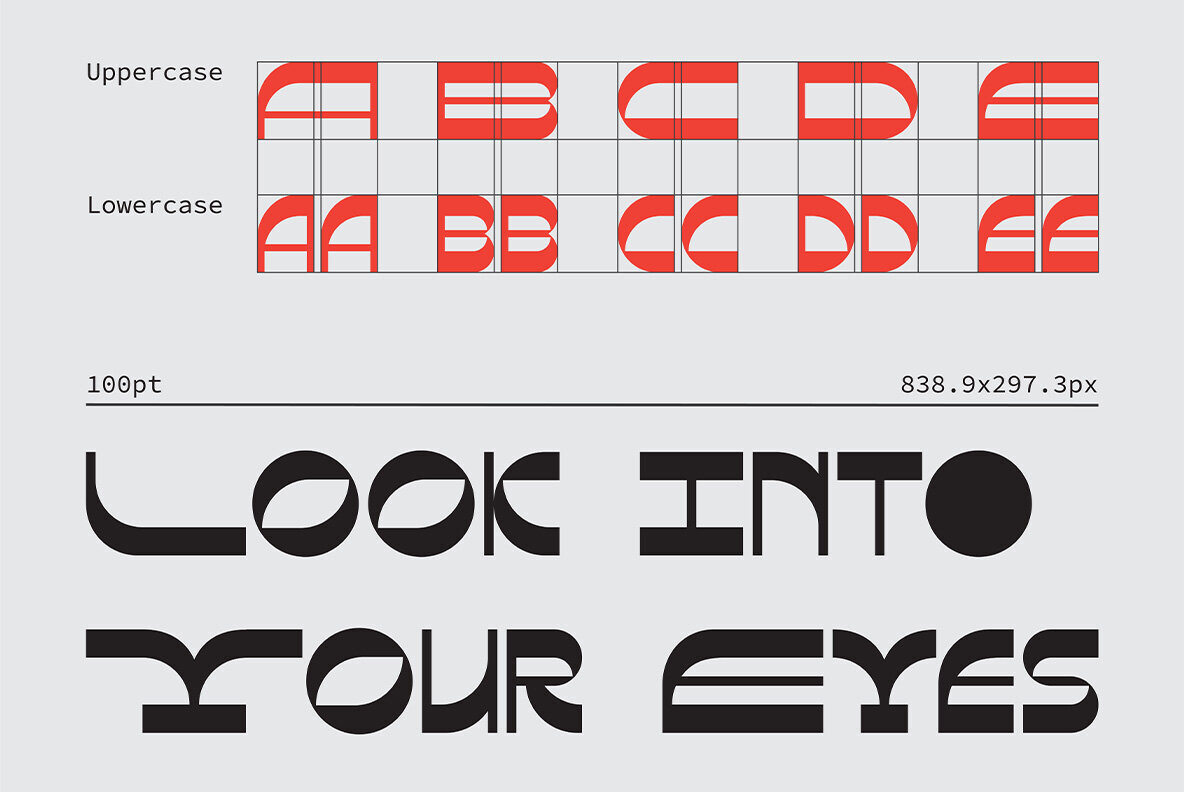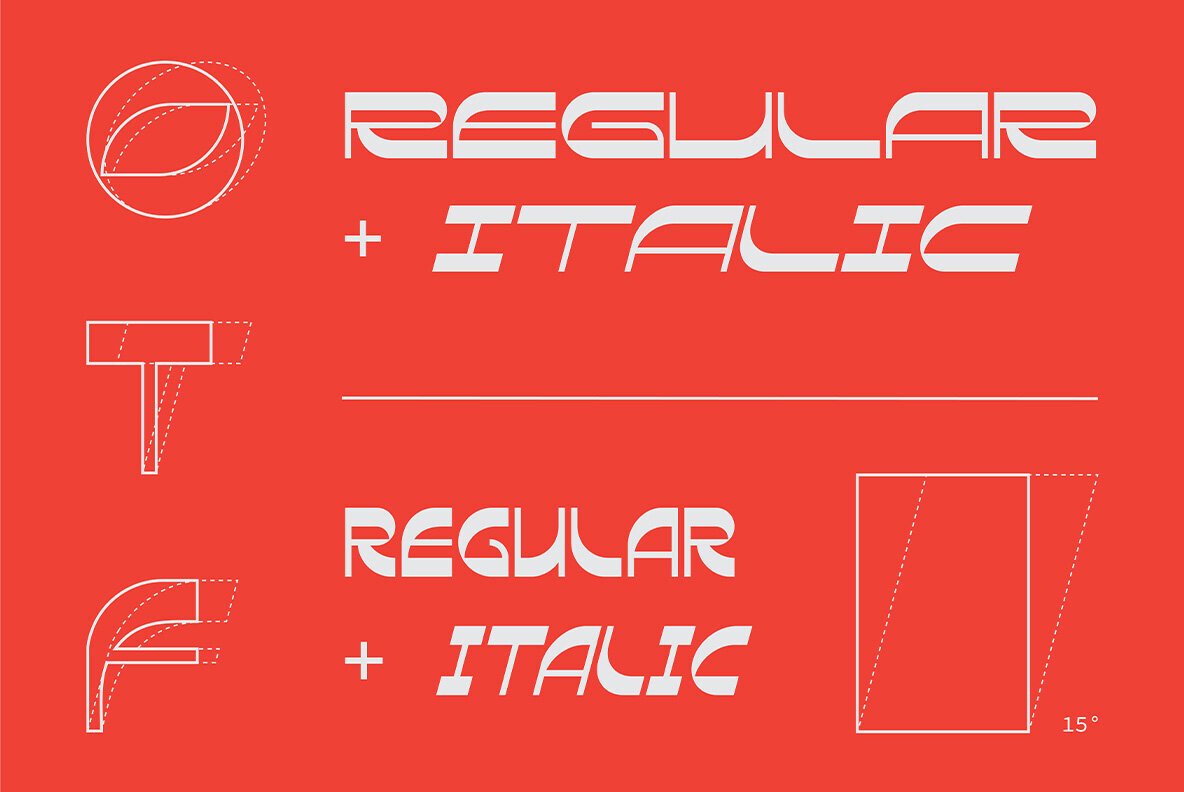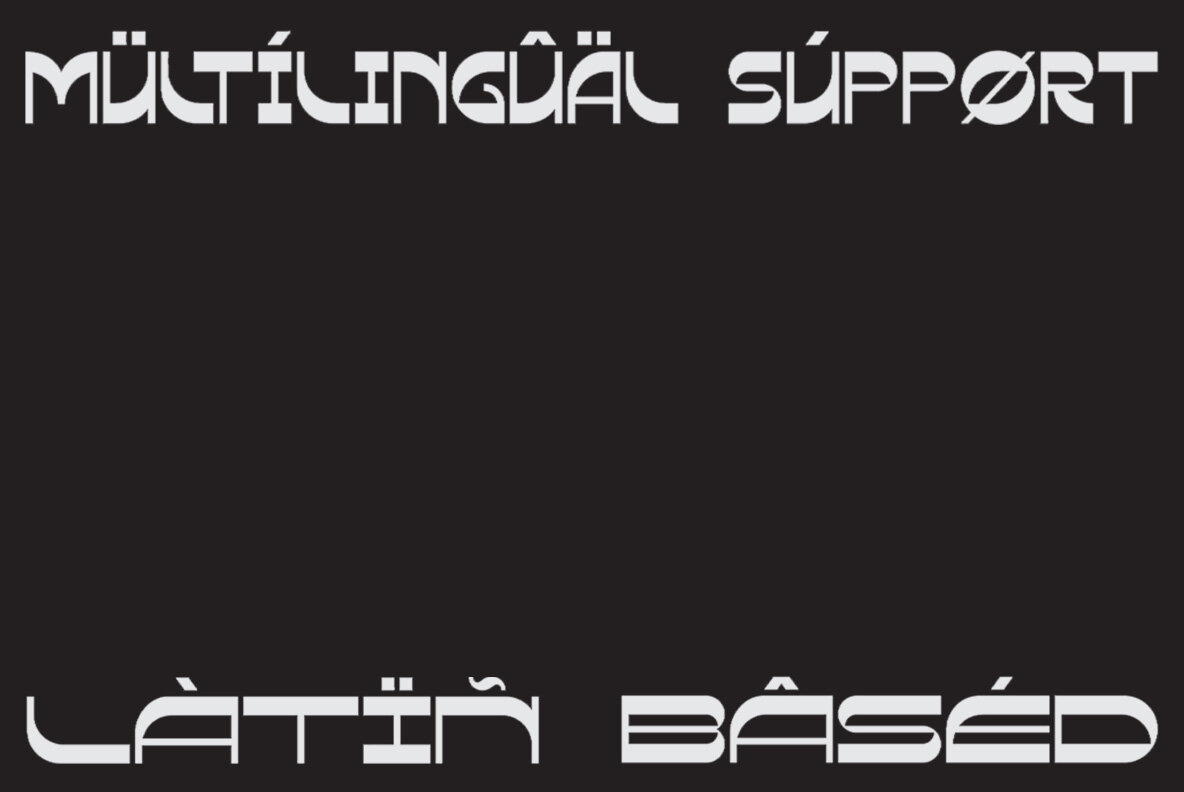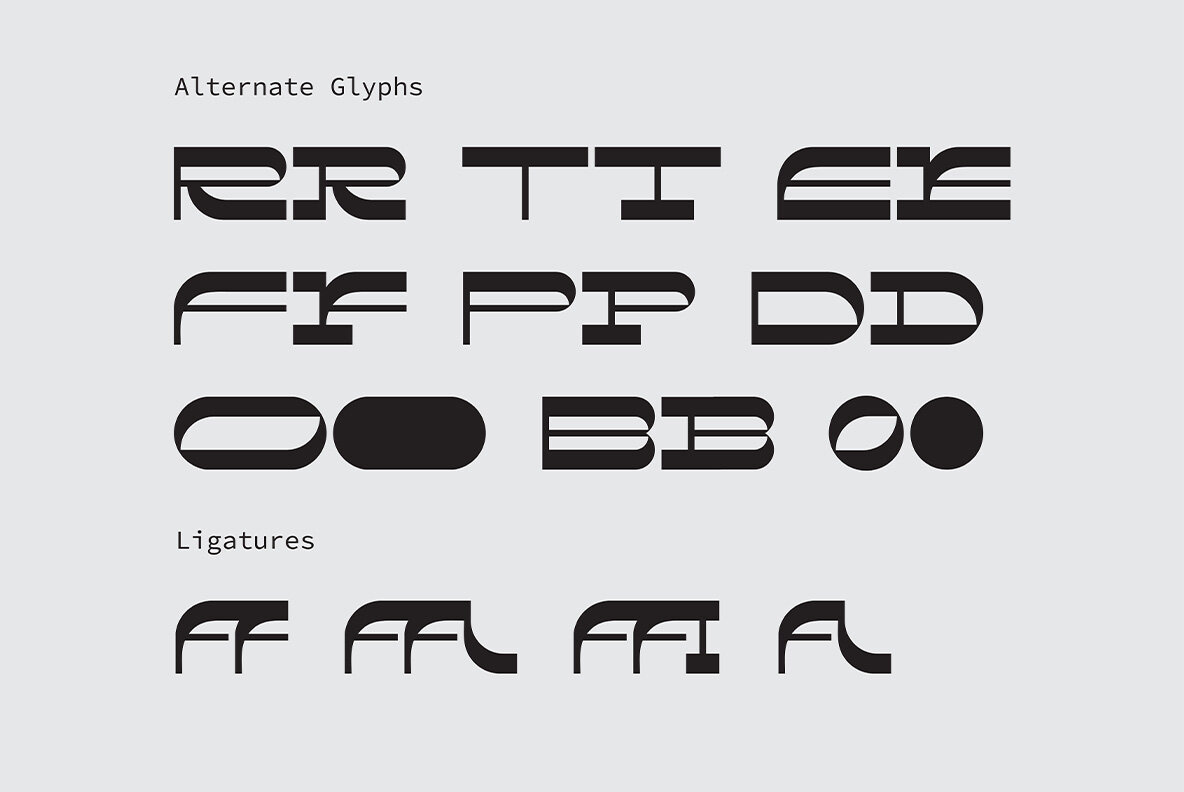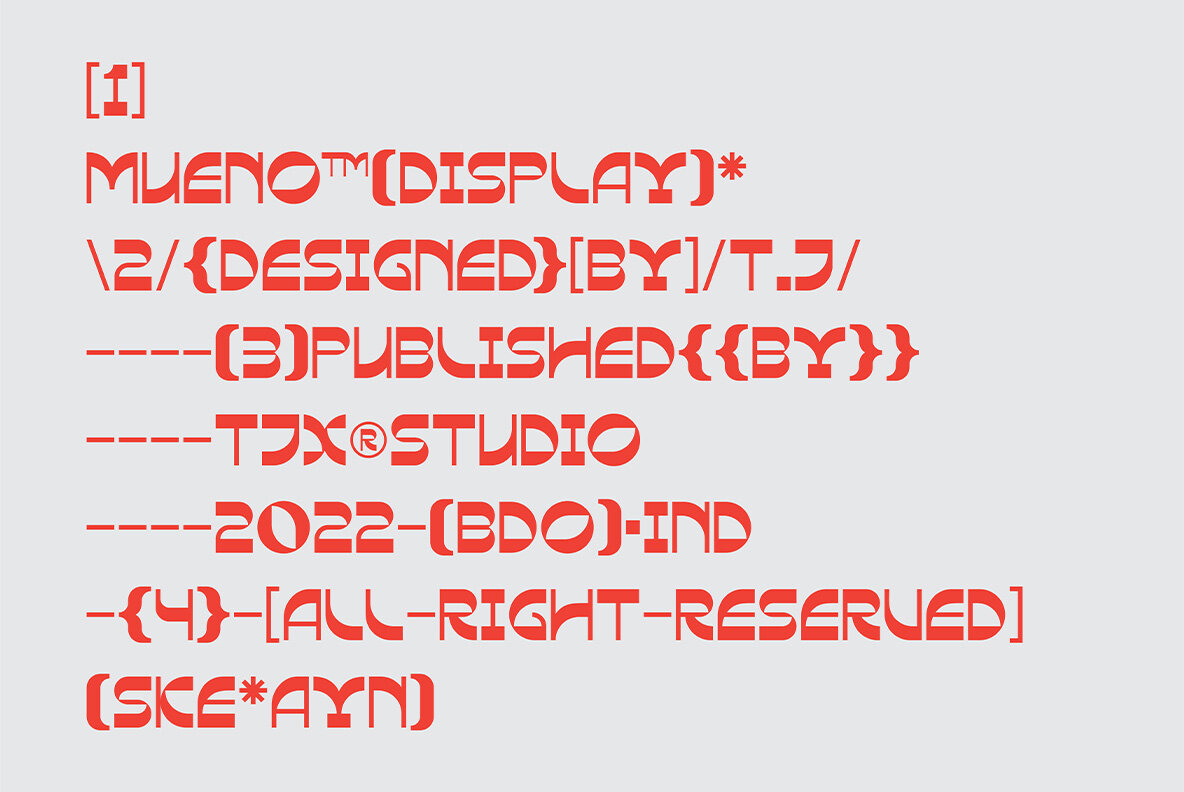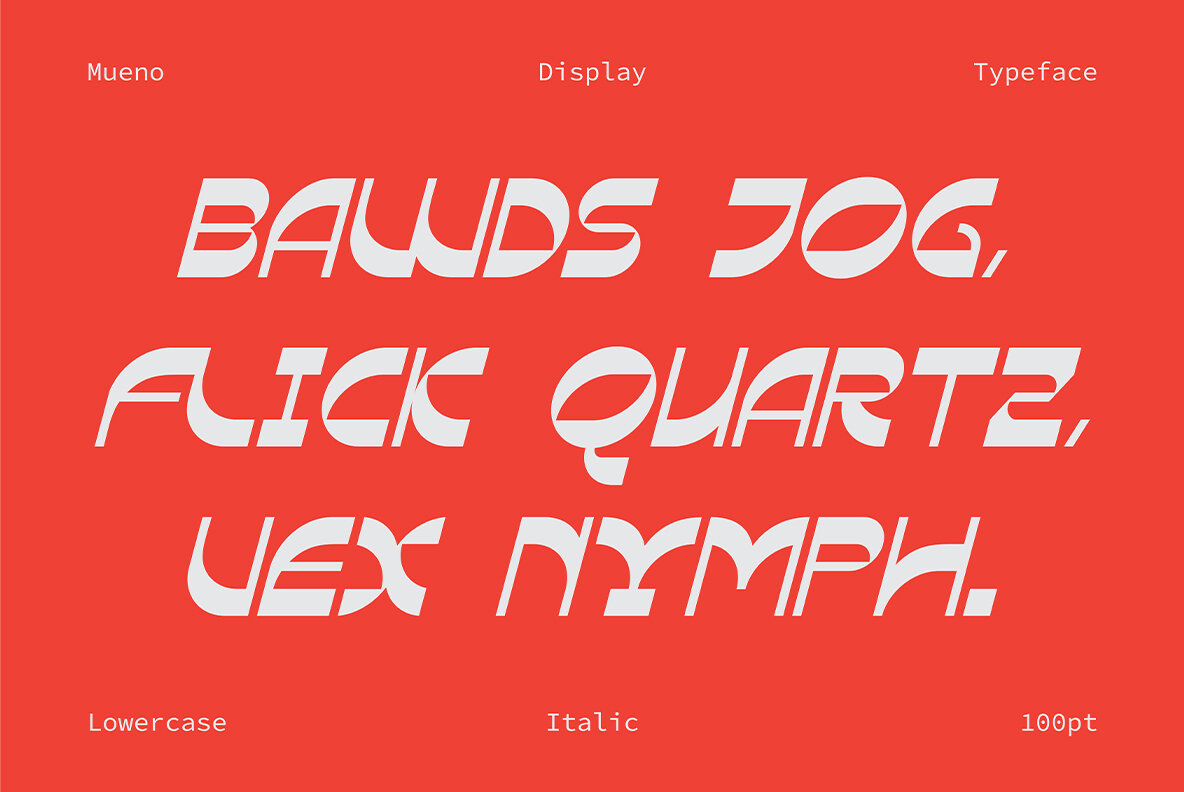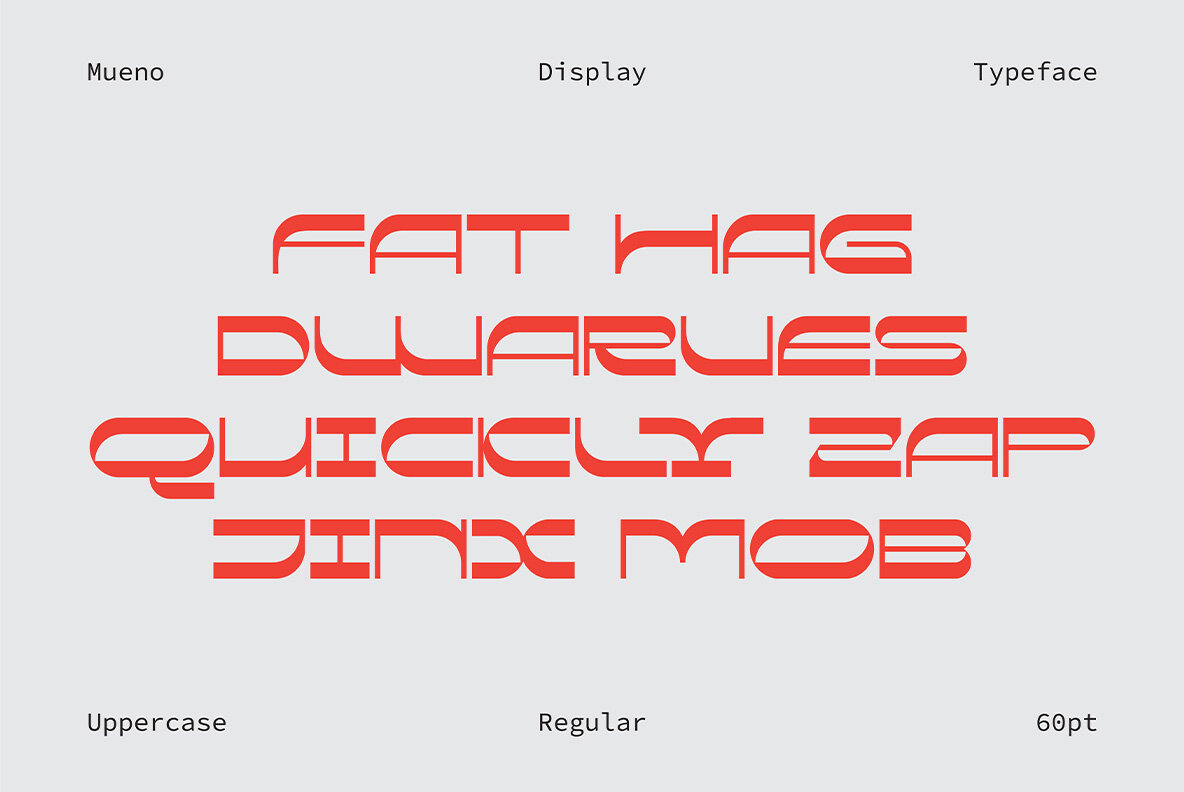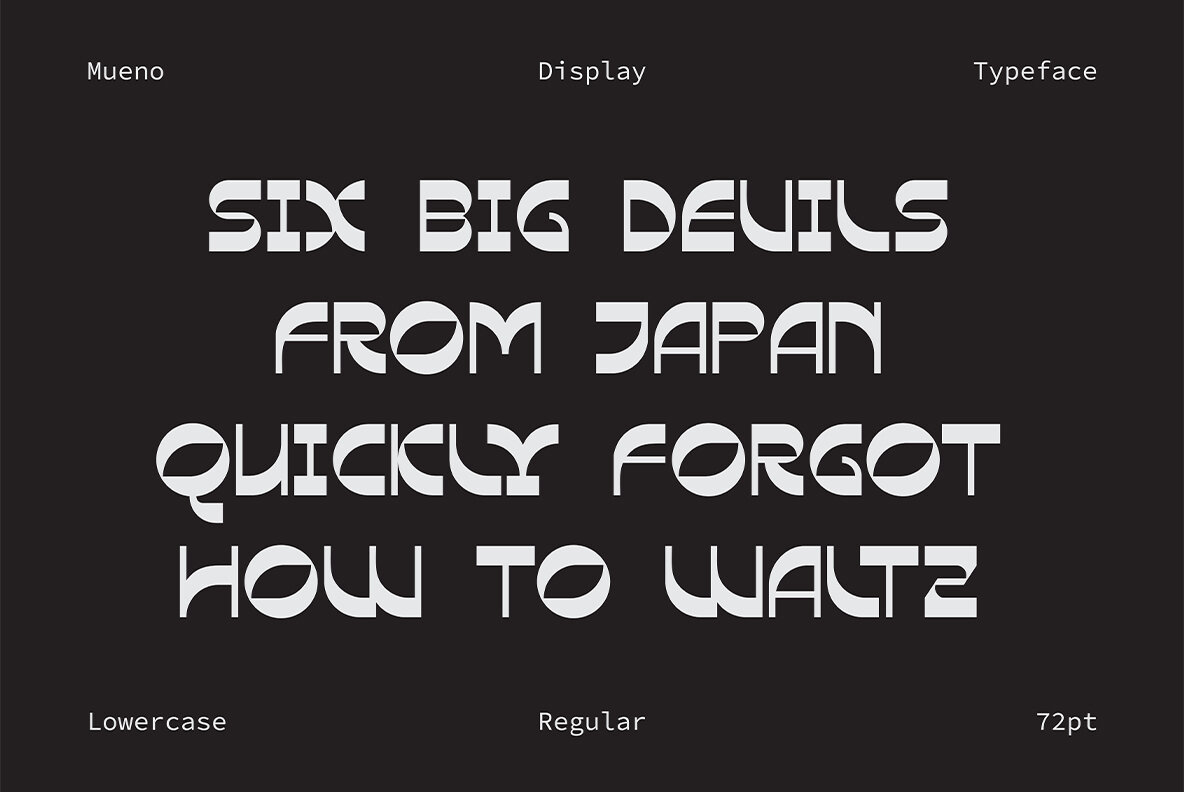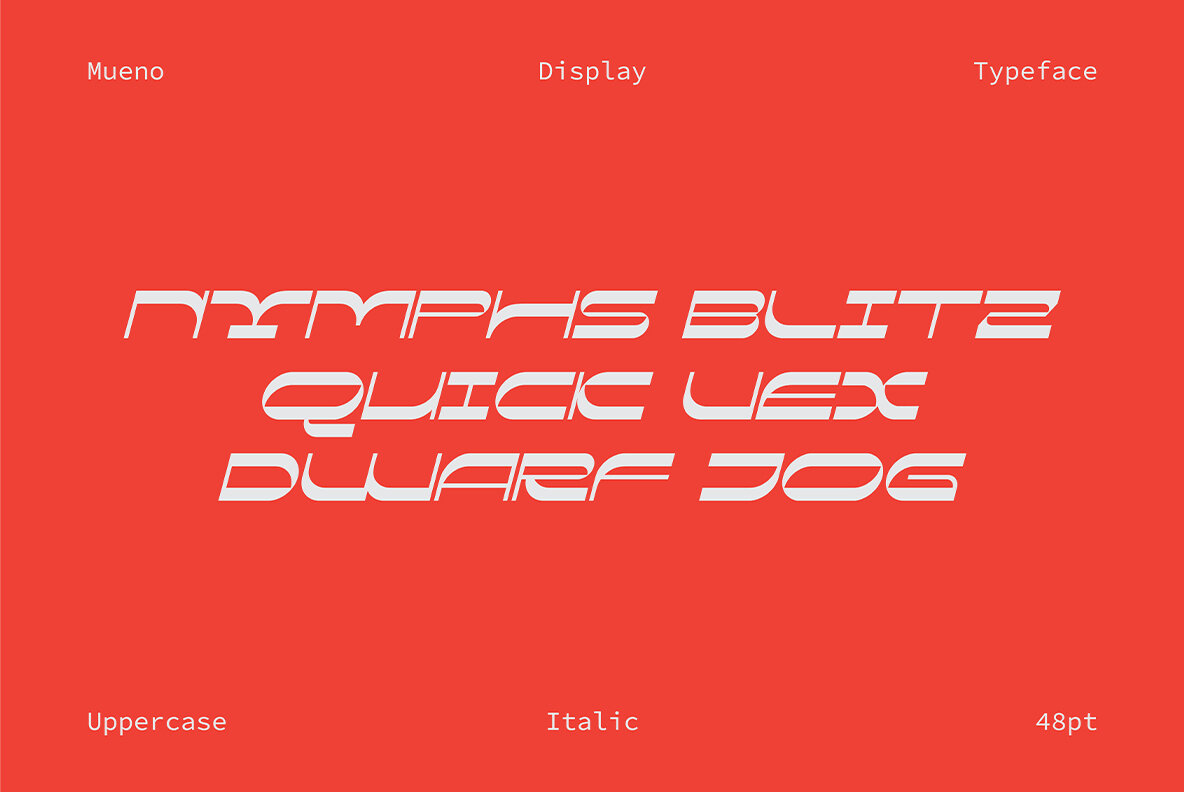
Mueno Font
In the spirit of modern retro culture, Mueno Display is an experimental font that features all capital letters and 1 regular style. It's perfect for use in posters or signage with its sleek look!